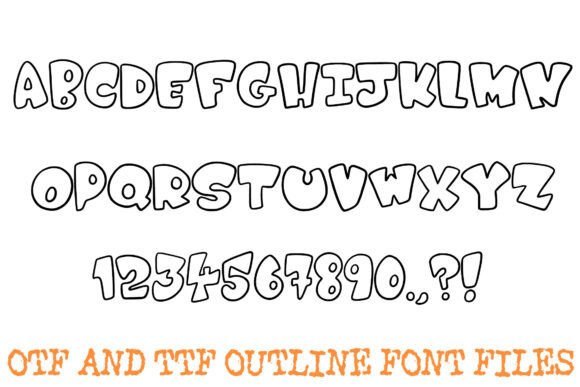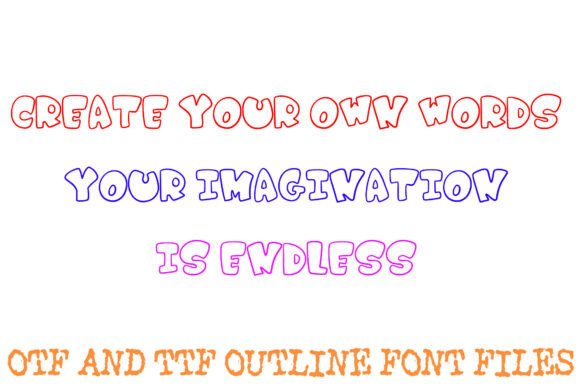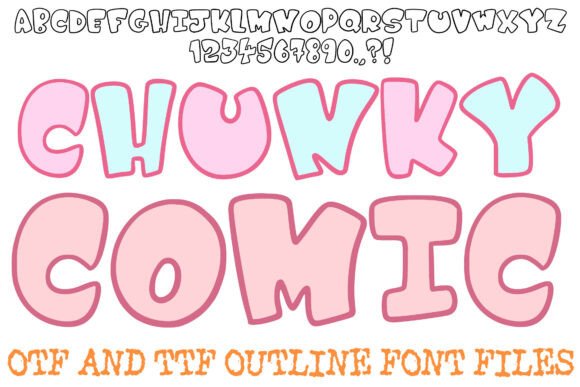
Punch Up Your Designs with Personality: The Chunky Comic Font
Are you tired of using the same old fonts in your designs? Do you want to add a touch of personality and energy to your social media headlines, branding, and marketing materials? Look no further than the Chunky Comic Font! This hand-drawn display alphabet is the perfect choice for designers and crafters who want to make a statement with their text.
What is the Chunky Comic Font?
The Chunky Comic Font is a bold, rounded block character font that leans into a classic, energetic comic book aesthetic. With its thick outlines and friendly, inflated silhouette, it’s the perfect choice for high-impact social media headlines, playful branding, children’s apparel, and vibrant YouTube thumbnails. The “pop-art” feel of each character makes your text stand out, providing a sense of depth and volume without losing legibility.
Why Choose the Chunky Comic Font?
So, why should you choose the Chunky Comic Font for your designs? Here are just a few reasons:
- Bold Inflated Perspective: Every character features a consistent, soft, balloon-like shape, giving your words a heavy, physical presence that demands attention.
- Clean Sketched Outlines: The slightly irregular, hand-inked borders provide an artisan feel that avoids the sterile, computer-generated look of some other fonts.
- Perfect for a Variety of Projects: Whether you’re creating a superhero-themed birthday invite or an edgy streetwear logo, the Chunky Comic Font delivers a fun, professional look that captures attention instantly.
How to Use the Chunky Comic Font in Your Designs
The Chunky Comic Font is versatile and can be used in a variety of design projects, including:
- Social Media Headlines: Make your social media posts stand out with bold, eye-catching headlines that grab attention and draw engagement.
- Branding: Add a touch of personality to your brand with a custom logo or typography that reflects your unique style and aesthetic.
- Children’s Apparel: Create fun and playful designs for kids’ clothing and accessories that are sure to delight both kids and parents.
- YouTube Thumbnails: Make your YouTube videos stand out with bold, attention-grabbing thumbnails that showcase your brand and style.
Tips for Getting the Most Out of the Chunky Comic Font
Here are a few tips for getting the most out of the Chunky Comic Font in your designs:
- Experiment with Color: The Chunky Comic Font looks great in bold, bright colors that match your brand’s personality and style.
- Play with Texture: Add some texture to your designs by combining the Chunky Comic Font with other textures and patterns.
- Keep it Simple: Don’t be afraid to keep your designs simple and bold – the Chunky Comic Font can stand on its own or be paired with other design elements.
In conclusion, the Chunky Comic Font is a versatile and fun font that’s perfect for designers and crafters who want to add a touch of personality to their designs. With its bold, inflated perspective and clean sketched outlines, it’s the perfect choice for a variety of projects, from social media headlines to branding and children’s apparel. So why wait? Give the Chunky Comic Font a try today and see how it can punch up your designs with personality!